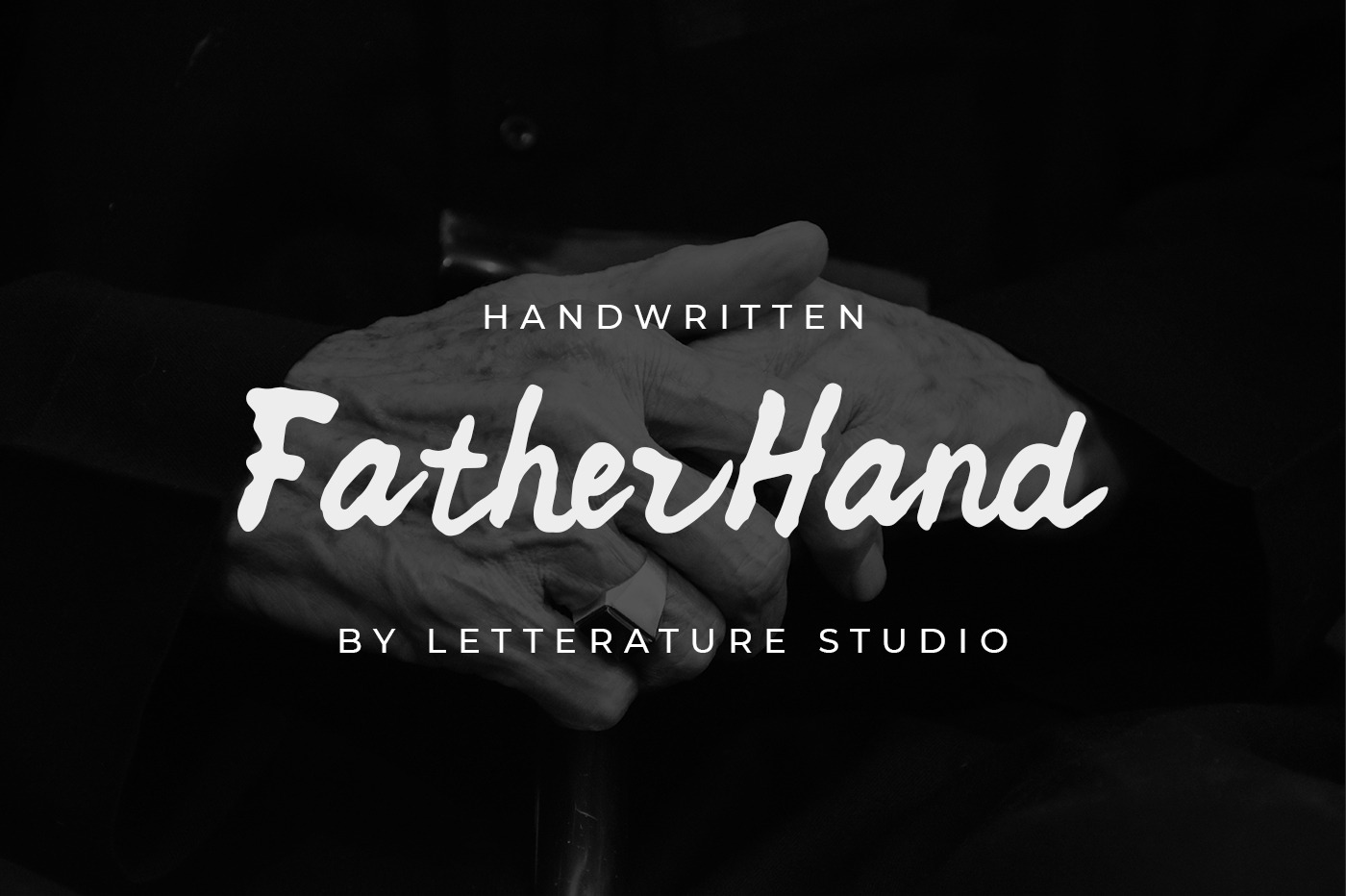
Futherhand | Handwritten Font
Fatherhand - Handwritten font. This font is suitable to use for fashion, classic style, elegant style, wedding & nature etc.